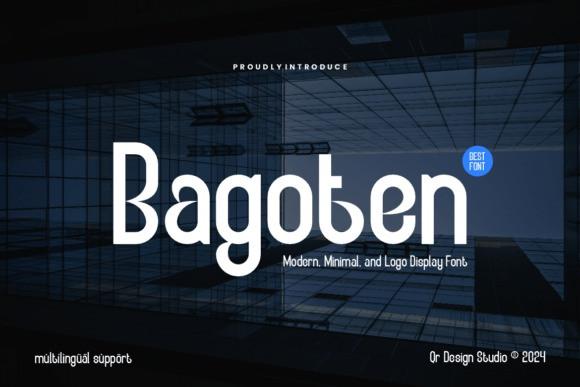
Bagoten Font
Designer: qrdesignstd
Bagoten Font  is a sweet and natural sans serif font. Its natural and unique style makes it incredibly fitting to a large pool of designs. The only limit is your imagination!